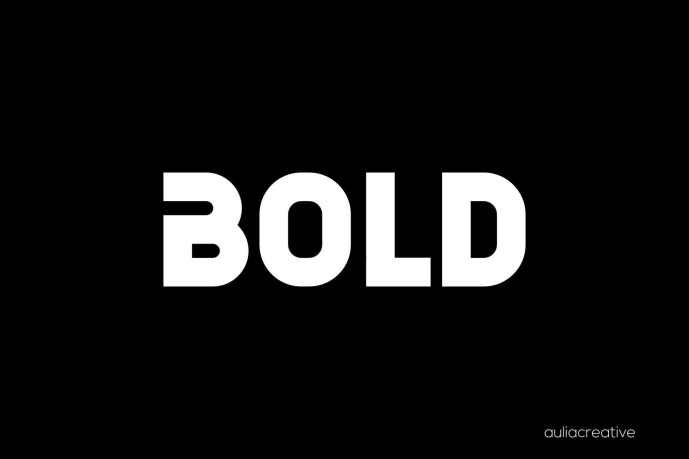
Balpy Font
Balpy Font is an awesome and authentic bold sans serif display font crafted to deliver a strong and confident visual impact. Featuring clean shapes and powerful letterforms, it is perfect for logos, branding, packaging, headlines, posters, and modern marketing materials. Balpy’s bold and contemporary style helps create eye-catching designs that stand out while maintaining a professional and memorable appearance.